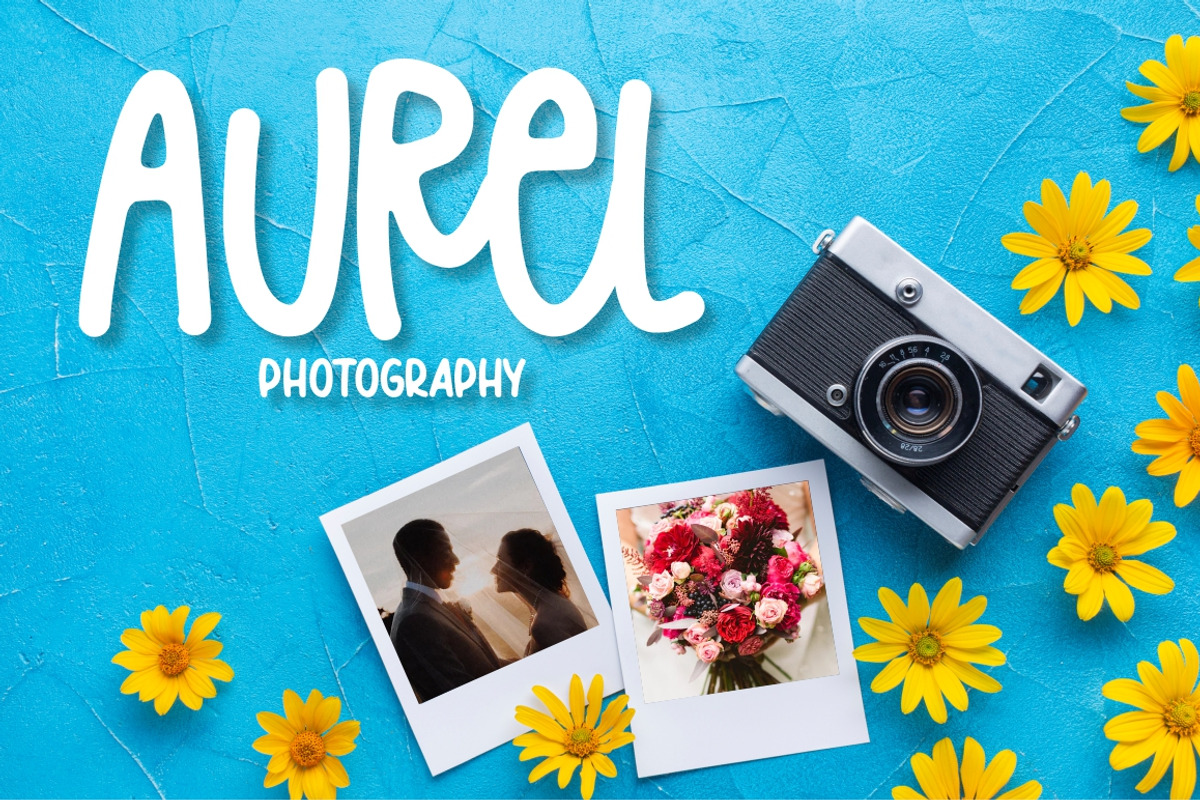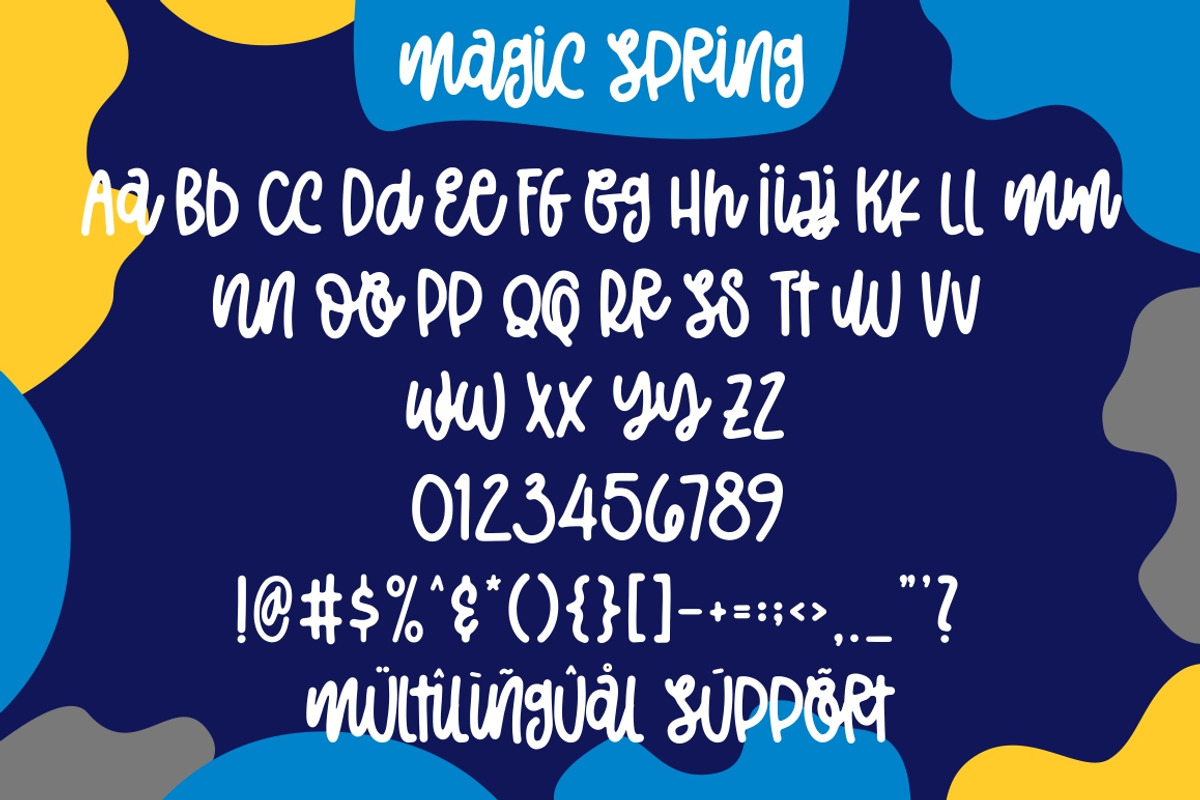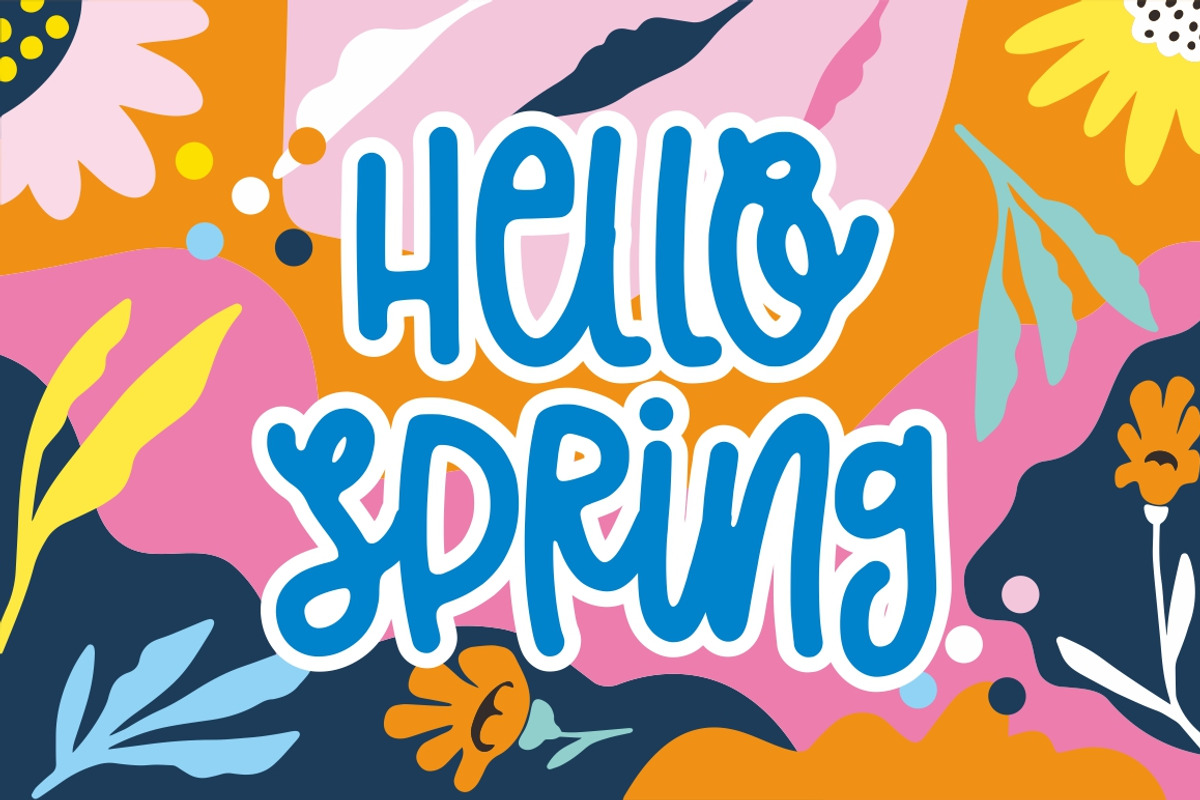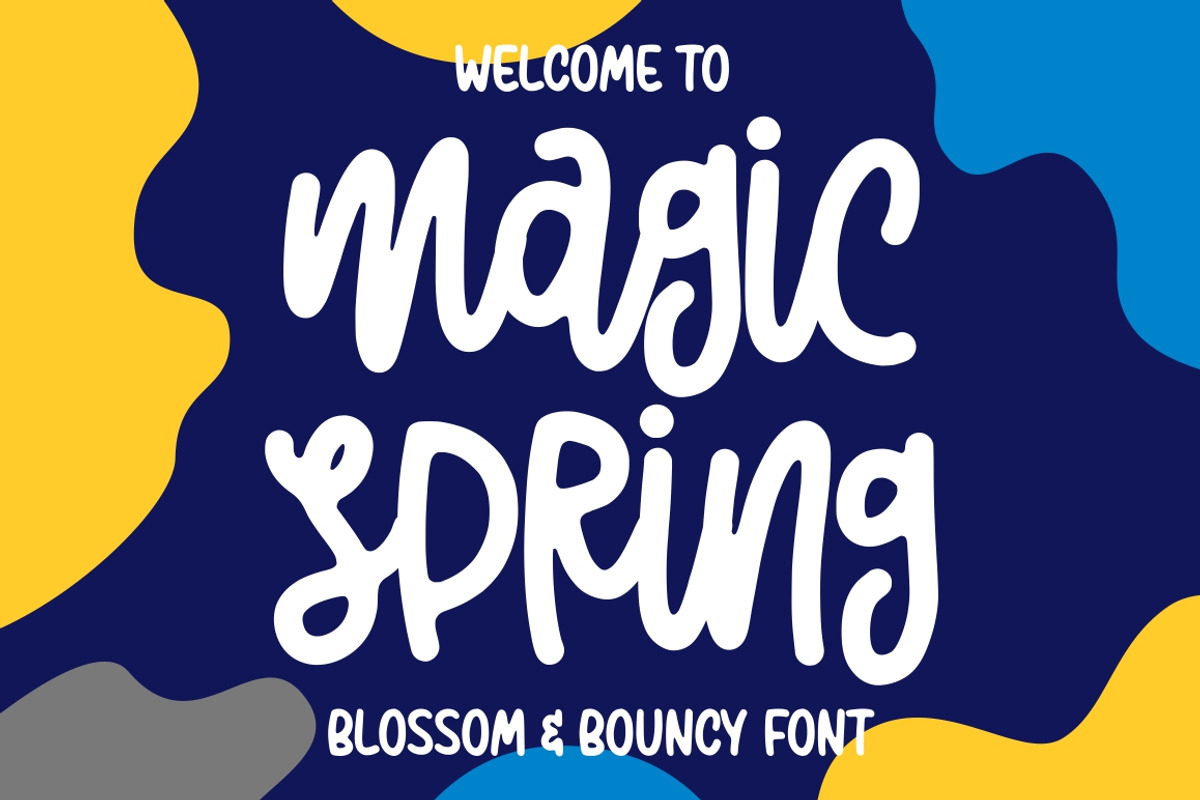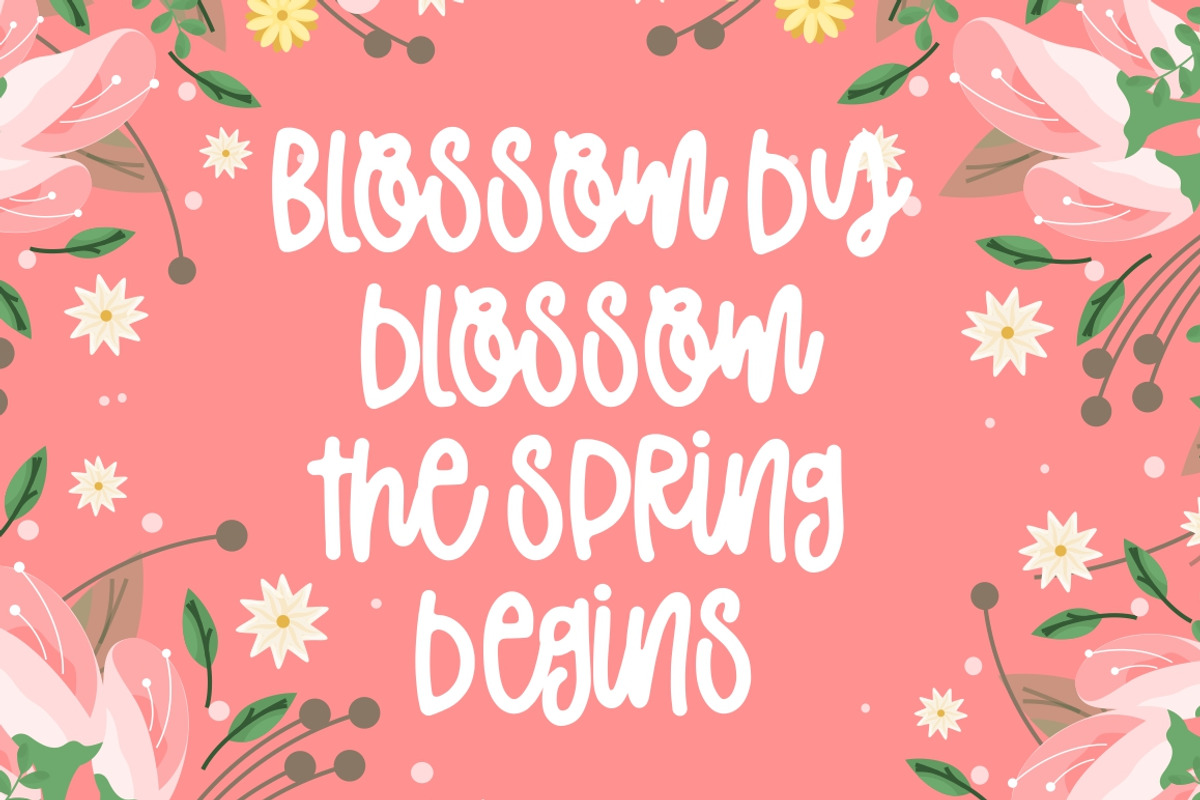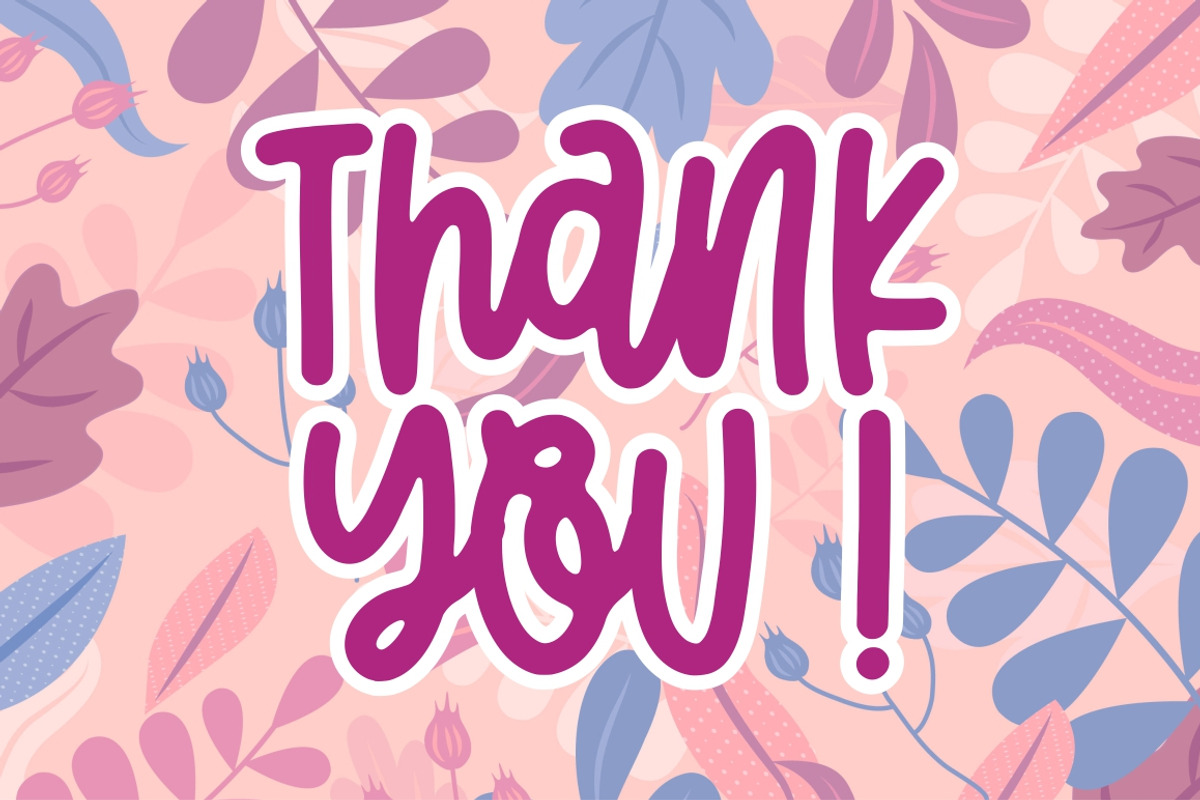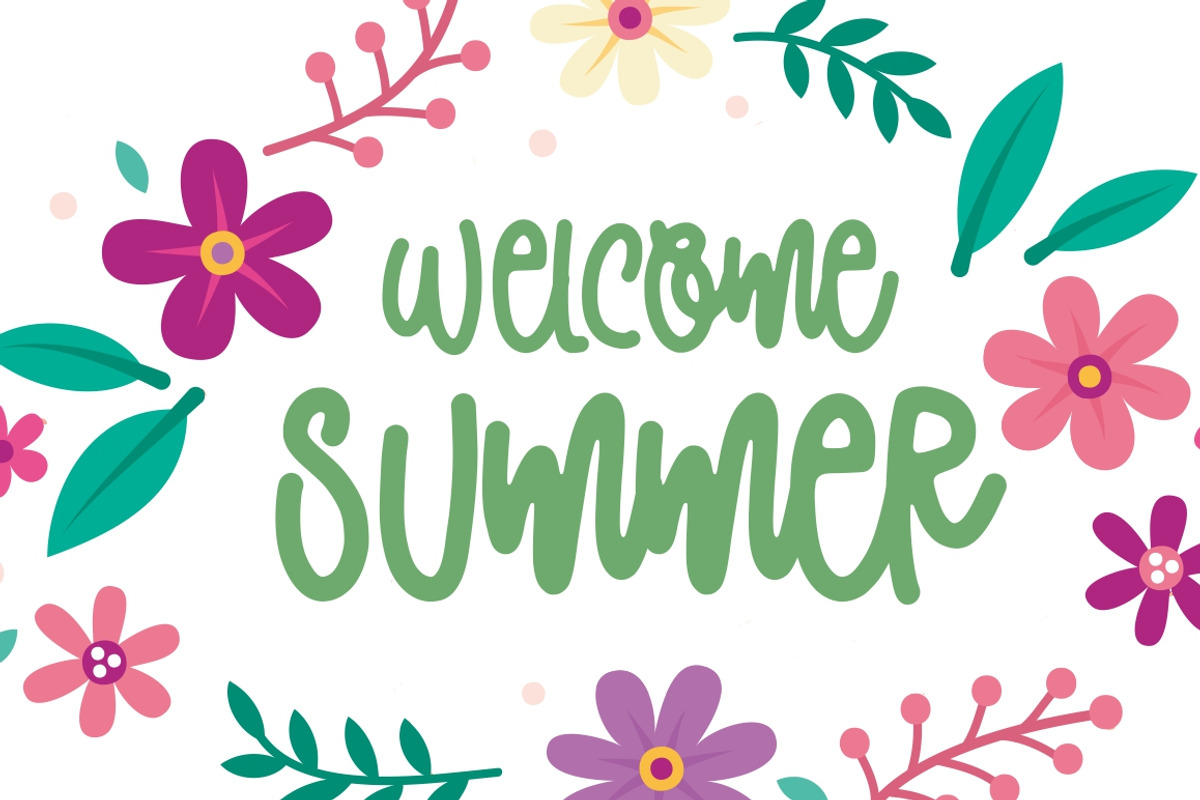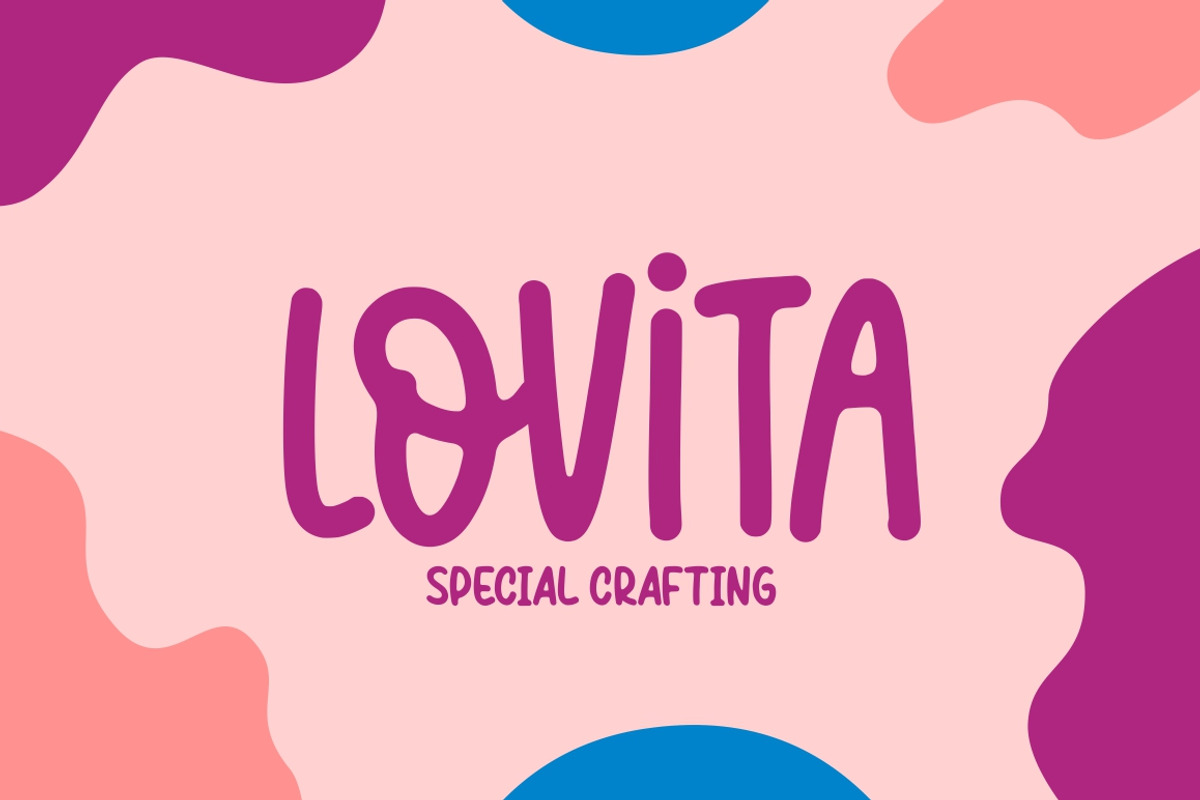
Magic Spring Special
Welcome to: Magic Spring
Magic Spring typeface born from original and natural handwritten in the paper with bold point and pen; delivering a stylish typeface that is guaranteed to add naturality styles and taste appeal to your logo designs, brand imagery, quotes, product packaging, merchandise & social media posts.Features:
- Uppercase & Lowercase letters -Numbers & Punctuation
- Multilingual Support with the accent.